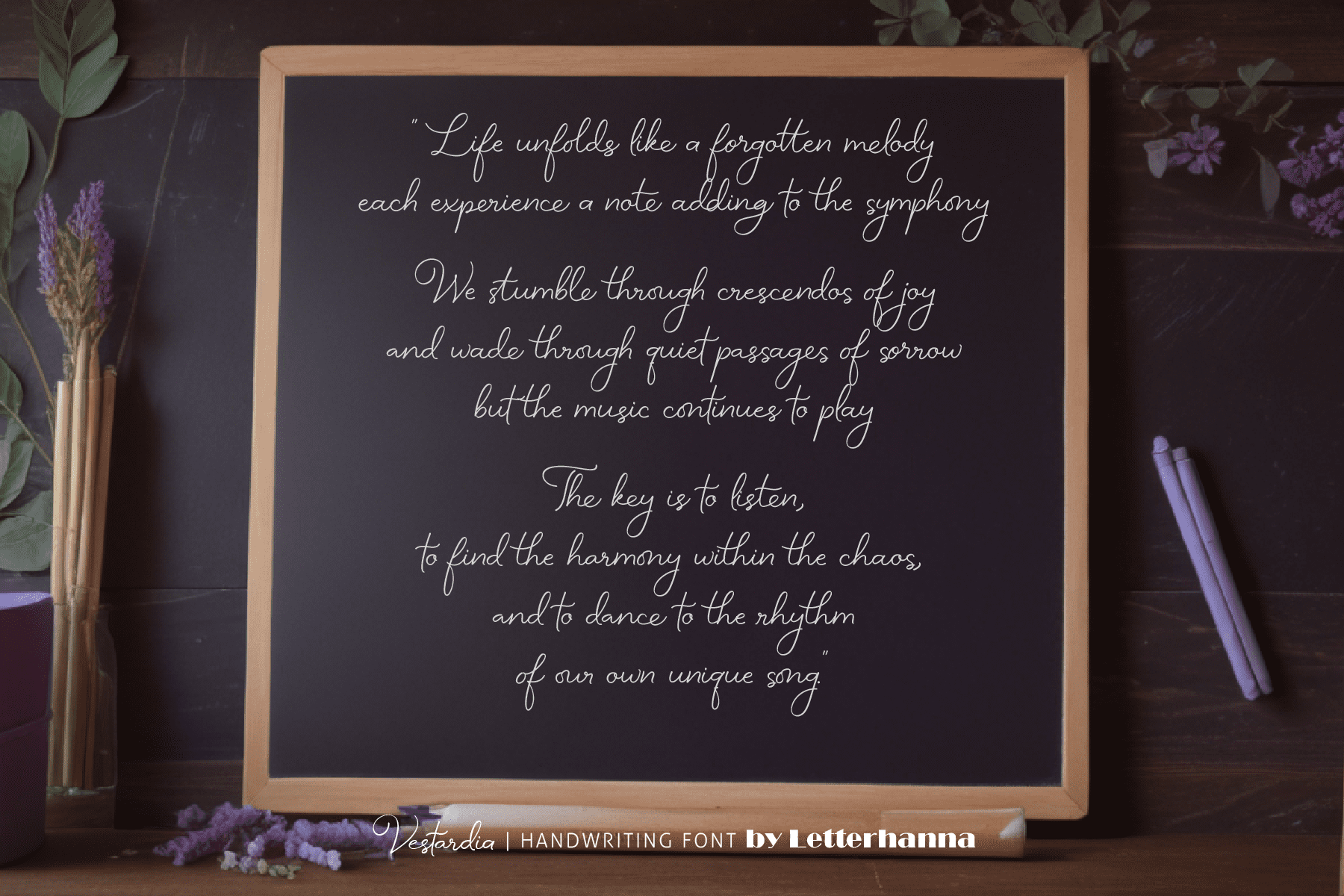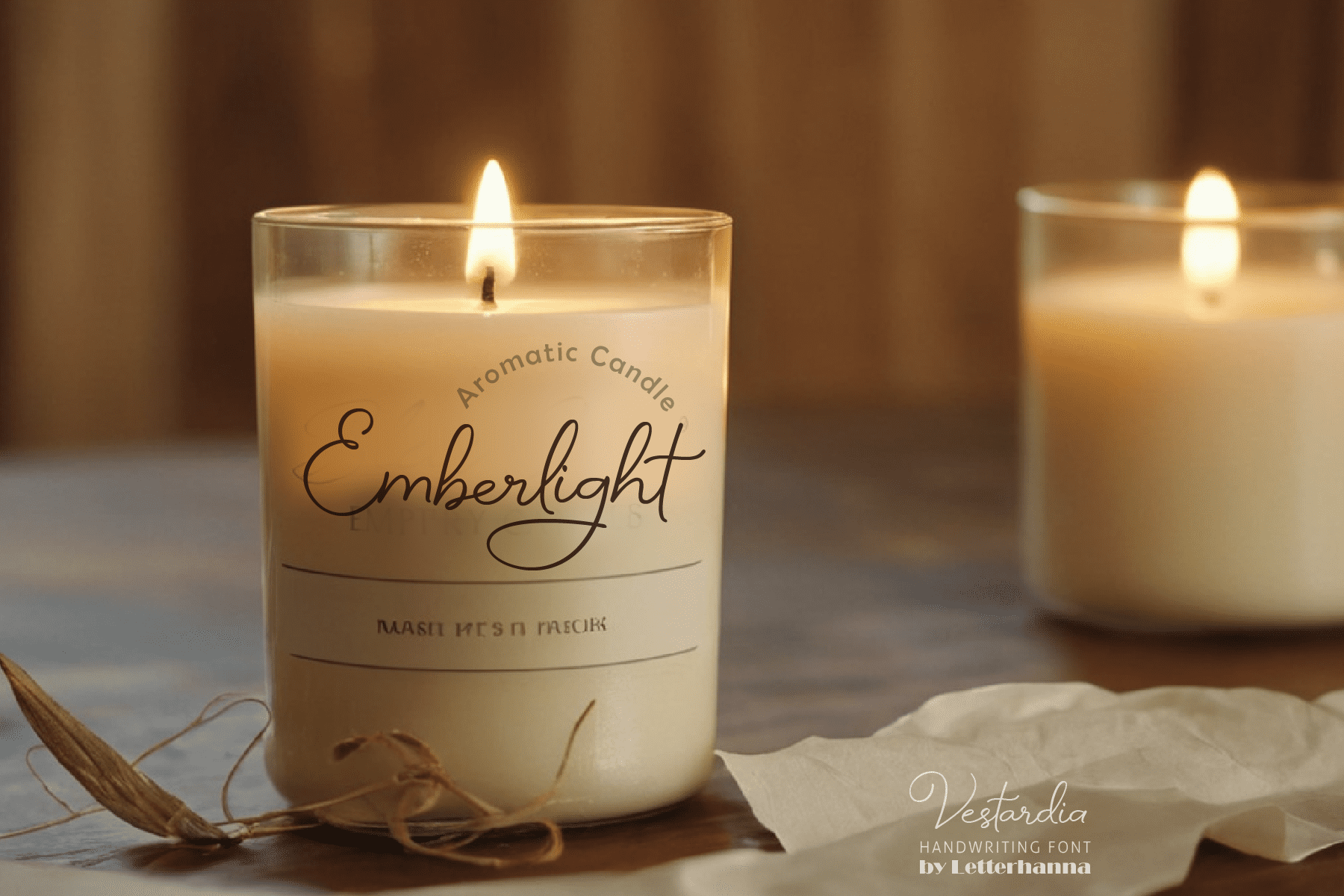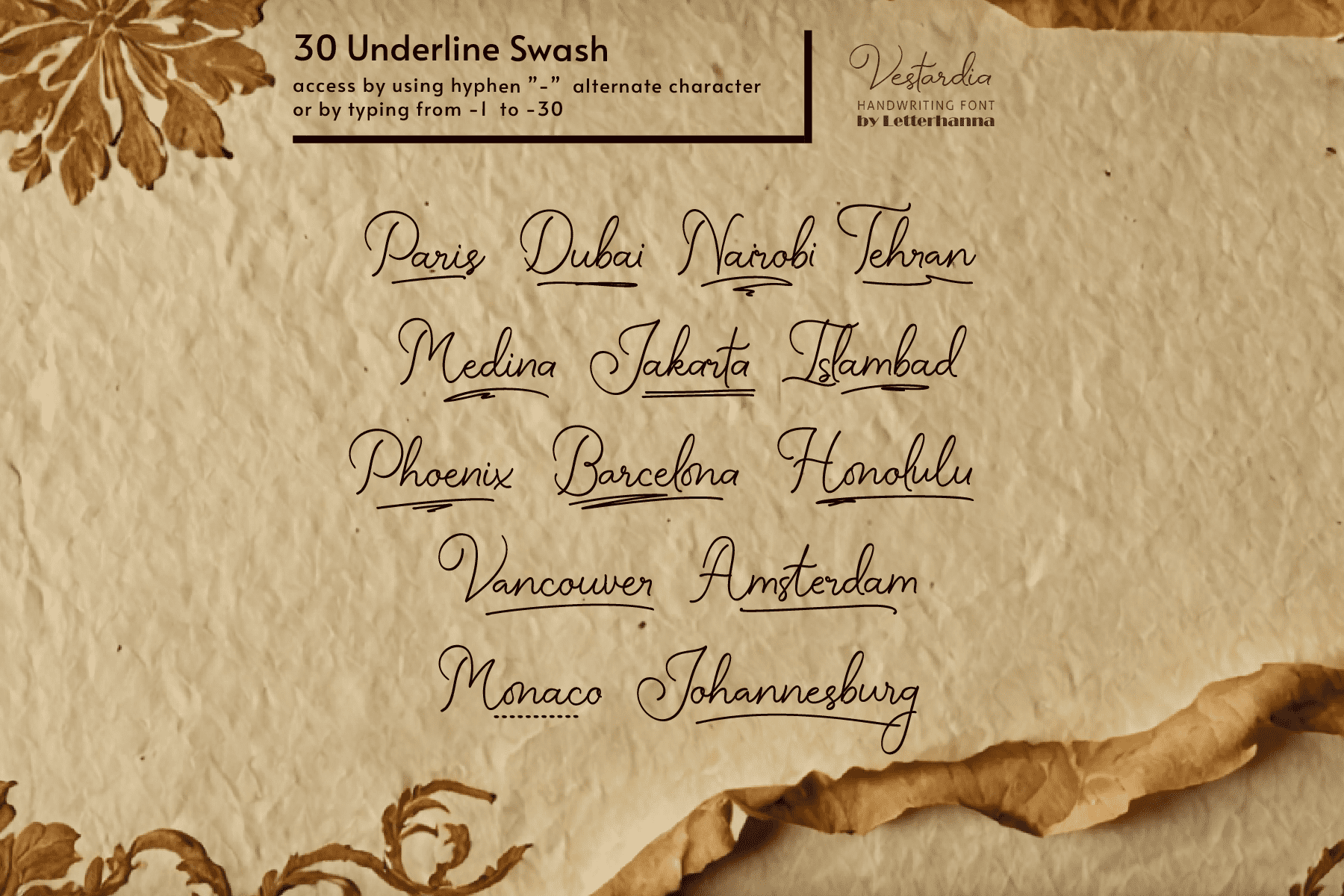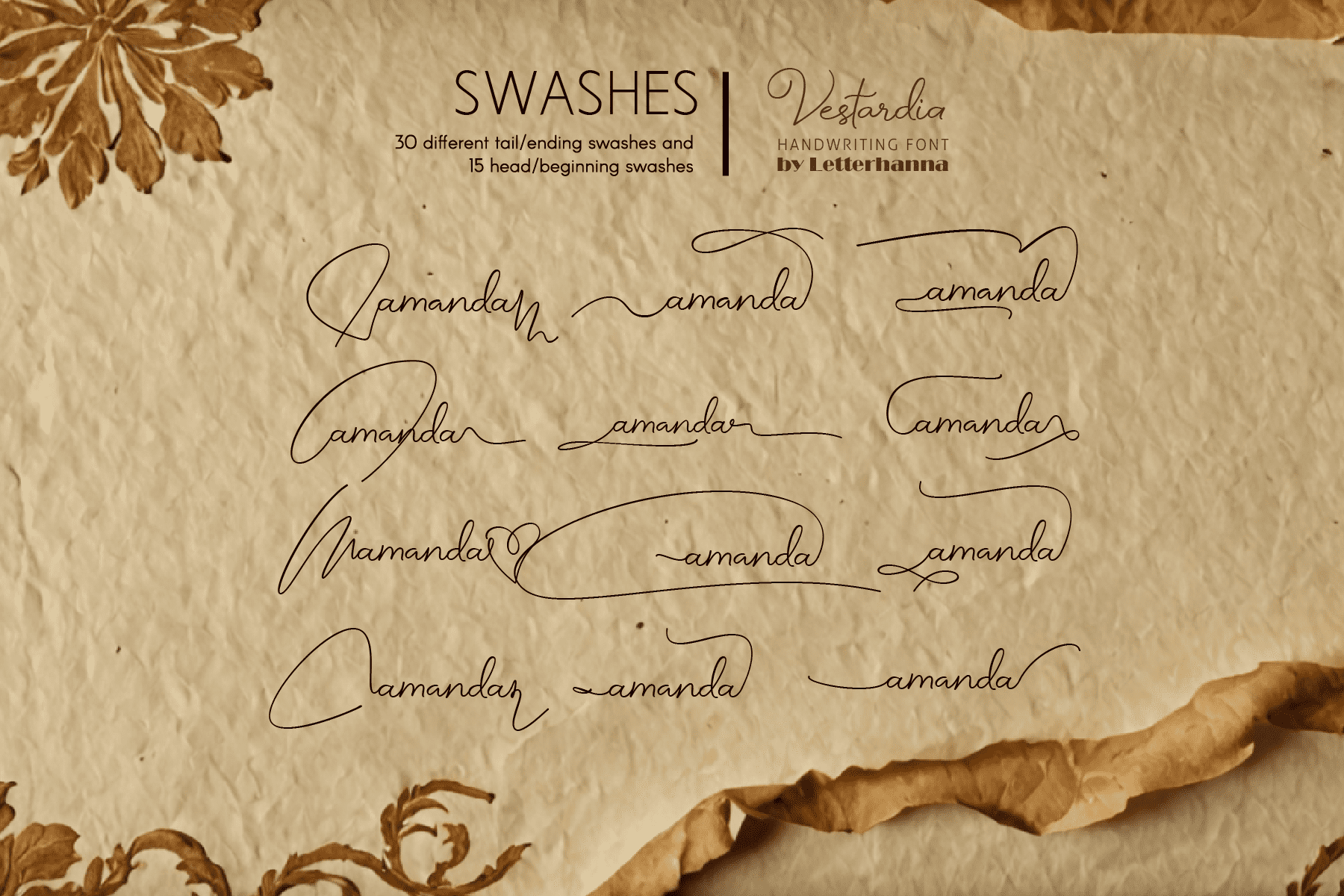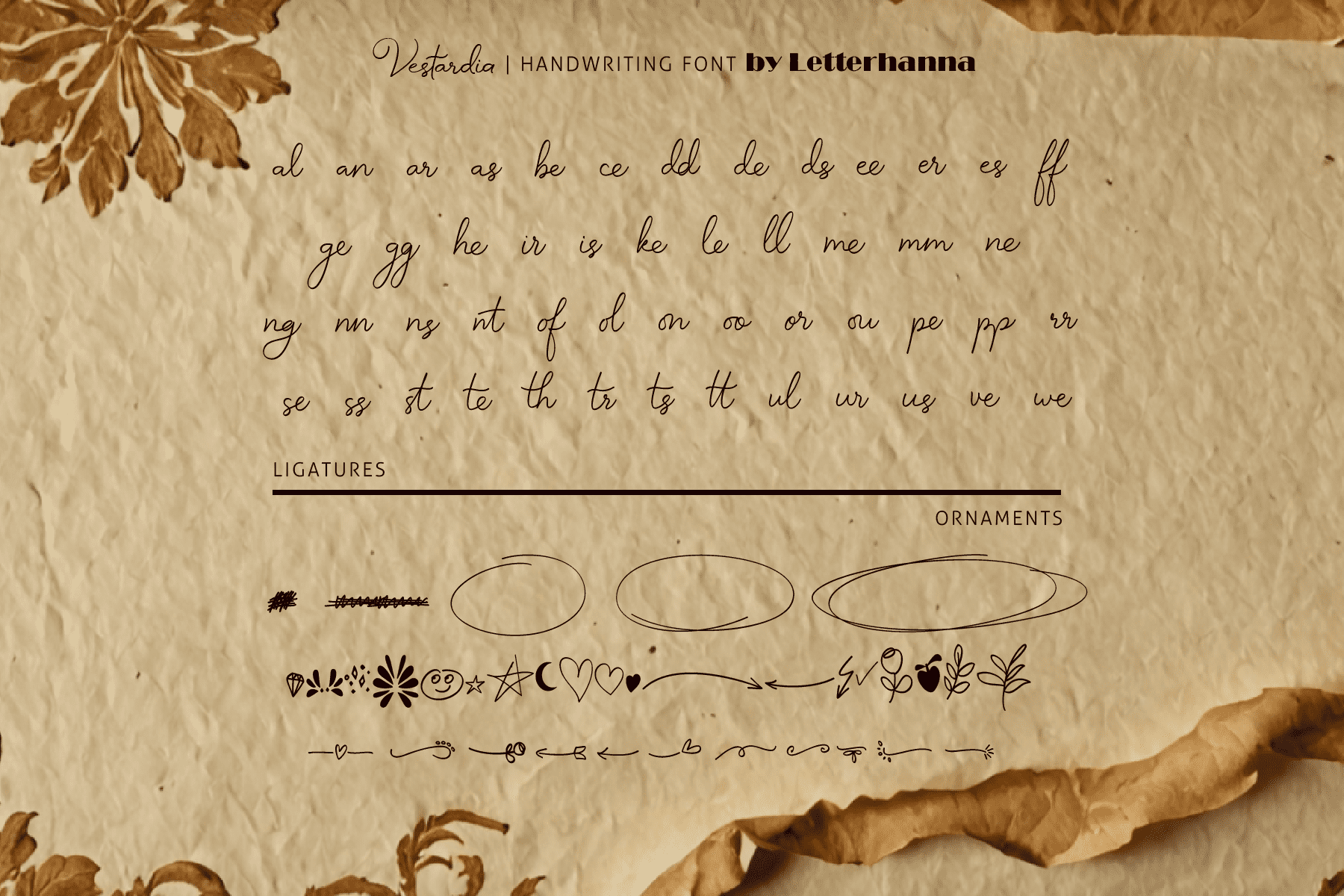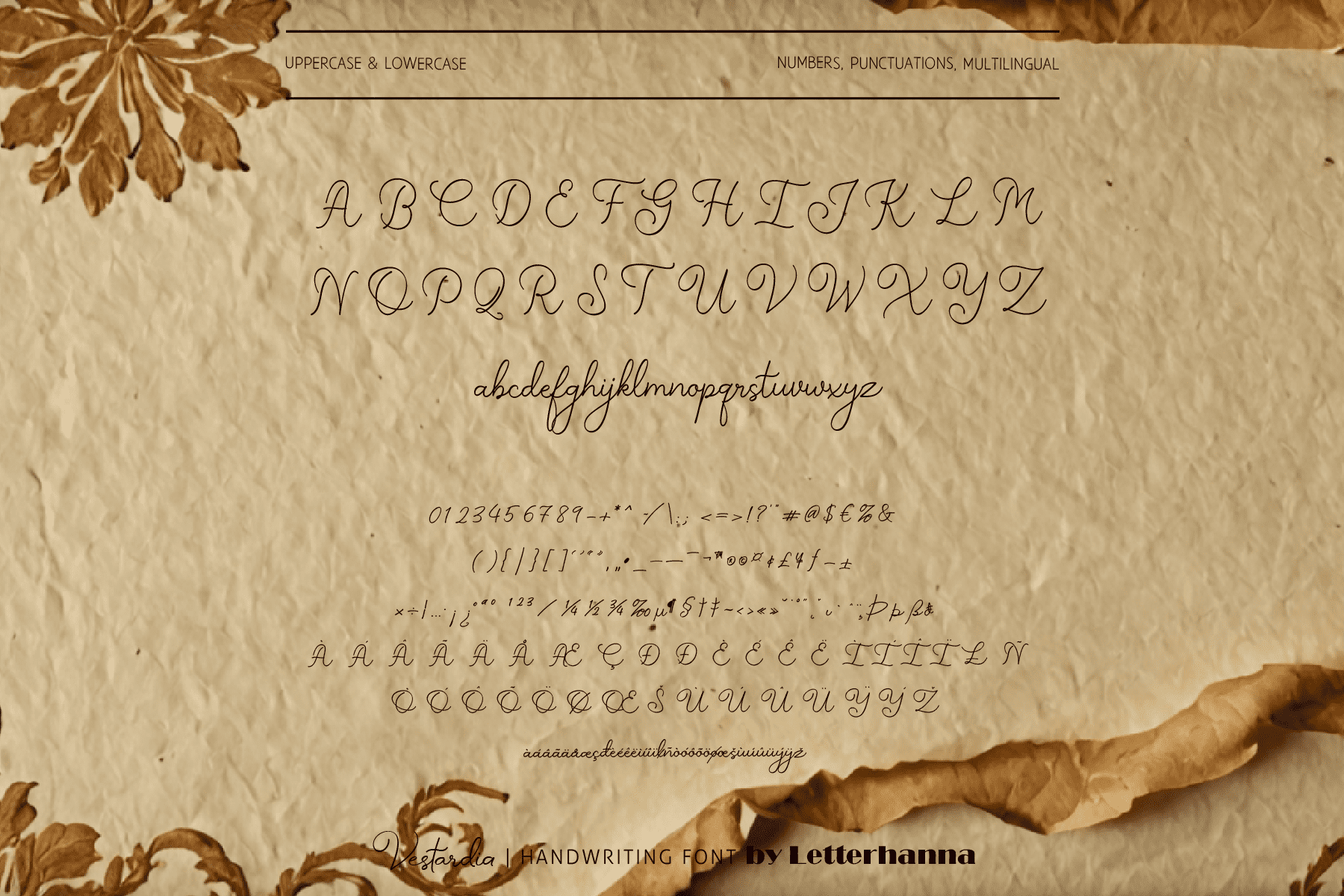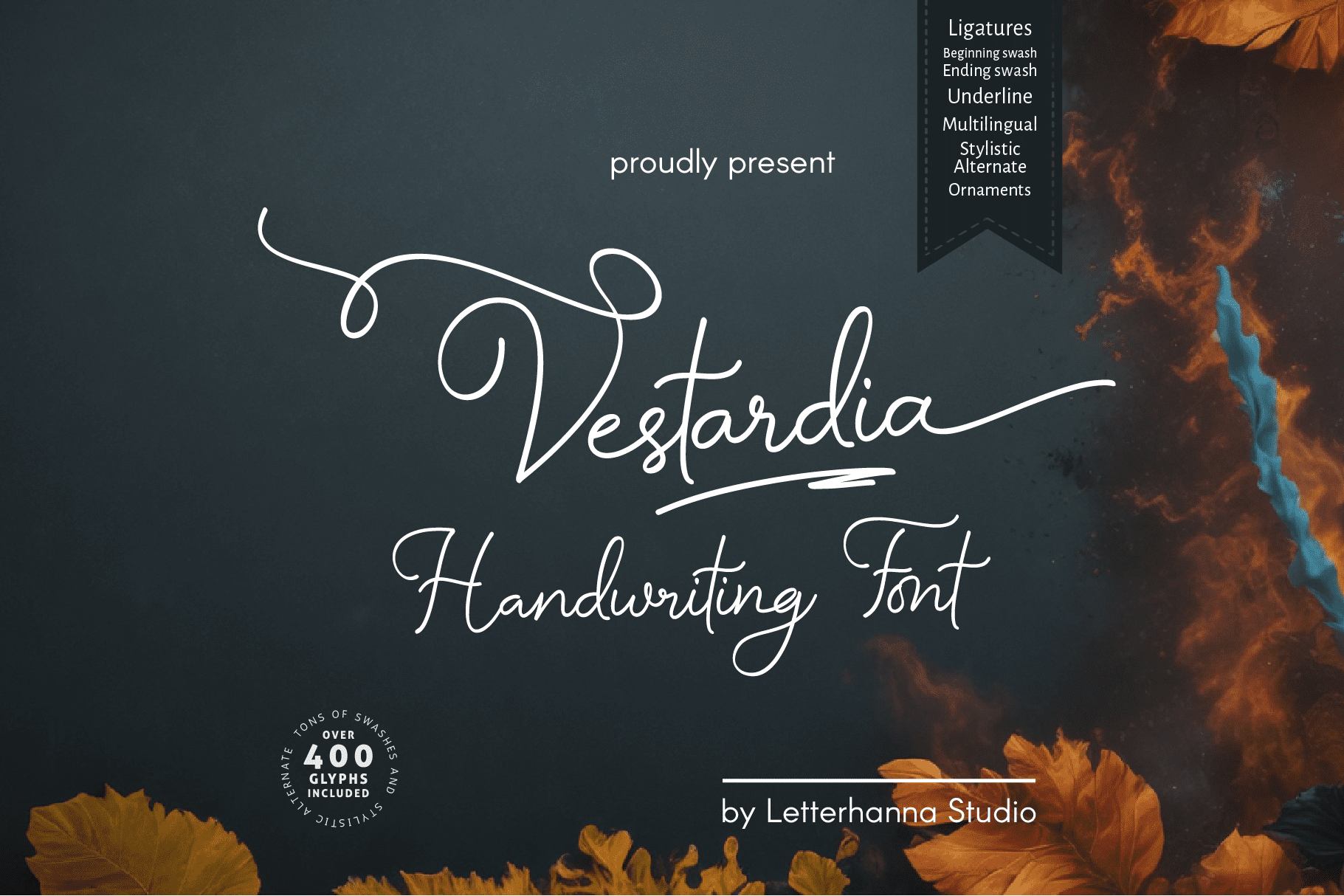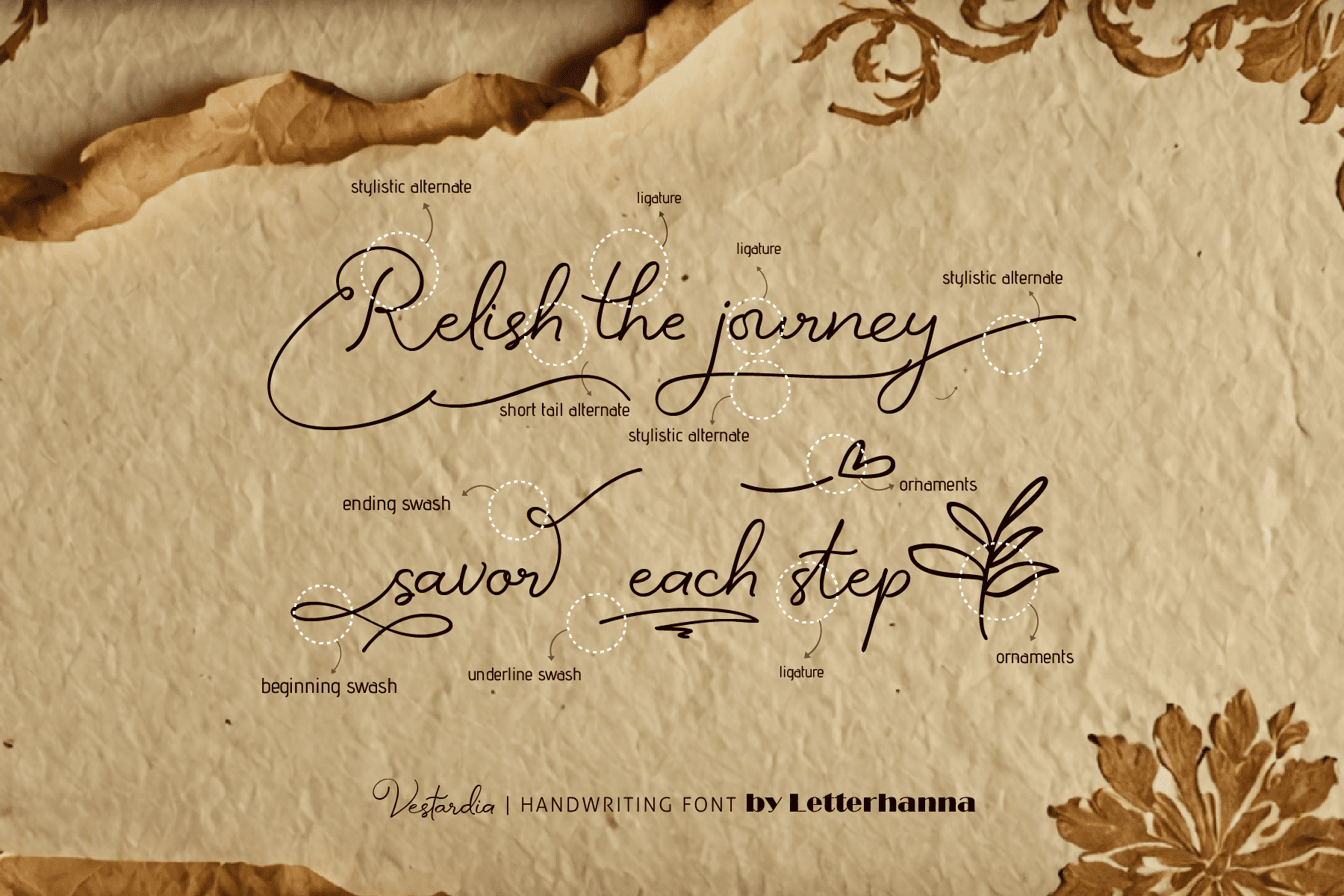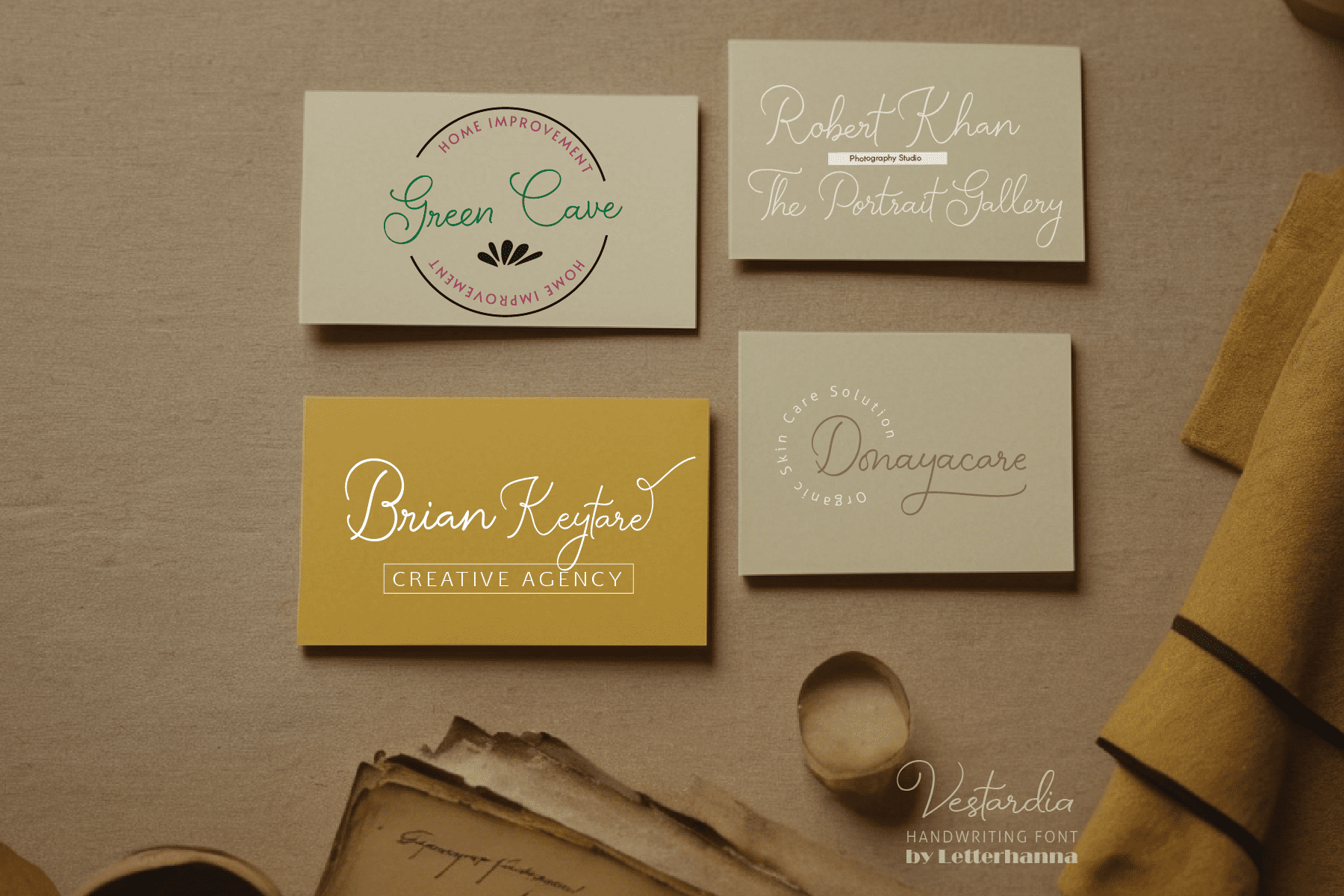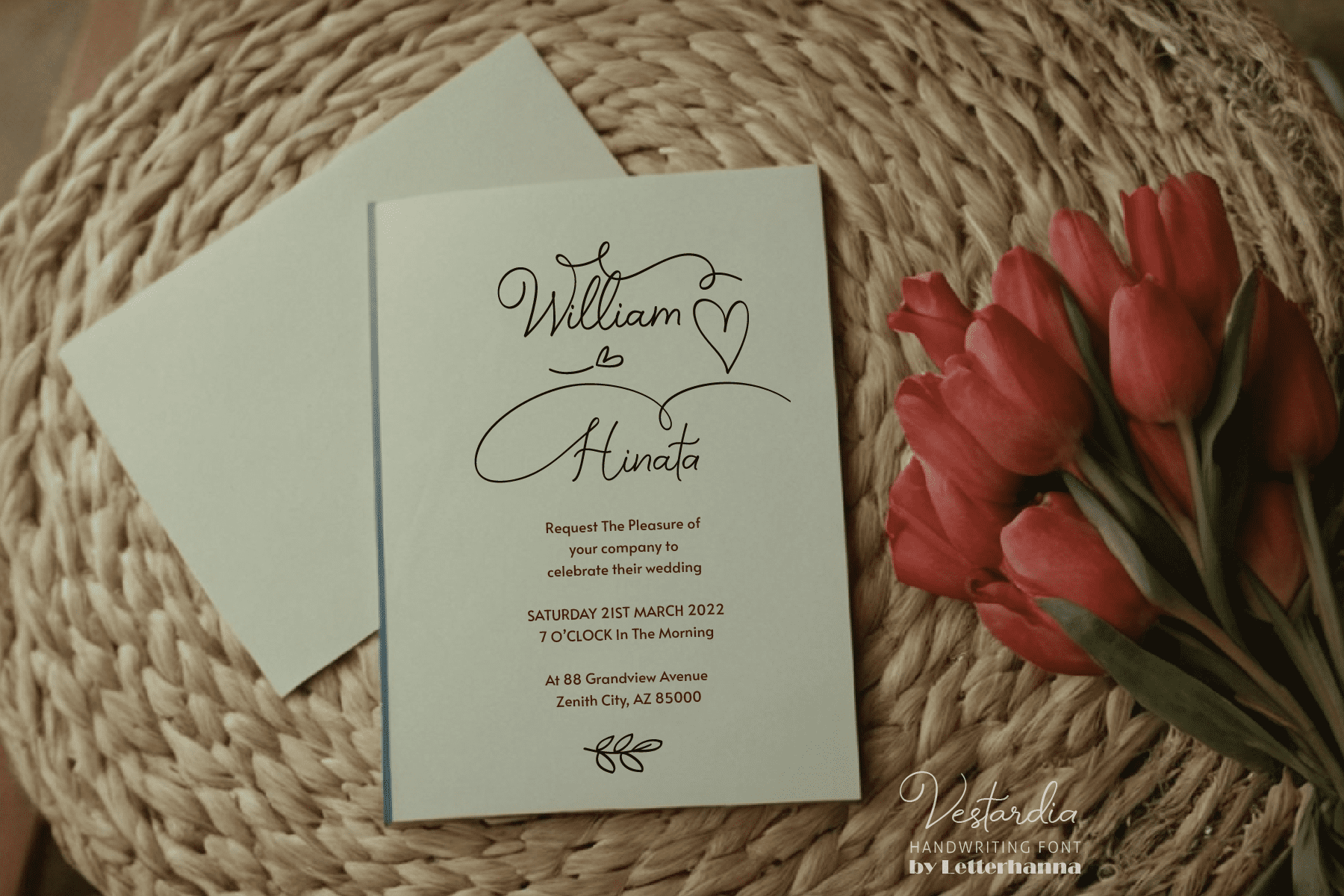
Vestardia Font
Unleash your inner calligrapher with Vestardia!
This captivating new handwriting script font transcends the ordinary. Vestardia boasts a treasure trove of stylistic alternates, swashes, and ligatures. These design flourishes dance across the page, allowing you to craft text with effortless elegance and a touch of whimsy. It’s perfect for adding a personal touch to wedding invitations, heartfelt letters, or captivating social media posts.
Accessing Stylistic Alternates
Stylistic alternates can be accessed by typing a plus symbol “+” in front of the original letter. For example, type “+a” to get the stylistic alternate of the letter a.
– Underline Swashes: Use a hyphen symbol “-” followed by a number between 1 and 30. For example, type “-3”, “-22”, or “-17” to get various underline swashes.
– Head/Beginning Swashes: Use a dollar sign “$” followed by a number between 1 and 9. For example, type “$2” or “$8” to get different head/beginning swashes.
– Tail/Ending Swashes: Use a percent sign “%” followed by a number between 1 and 30. For example, type “%3” or “%15” to get various tail/ending swashes.
– Ornaments: Use an “at” symbol “@” followed by a number between 1 and 26. For example, type “@4” or “@13” to get different ornaments.
PUA Encoding for Ease of Use, which means you can access all the glyphs and swashes with ease!
• Uppercase and lowercase letters
• Numbers and punctuation marks
• Multilingual support
• Ligatures
• Beginning and ending swashes
• Underline swashes
• Stylistic alternates
• Ornaments
• Easy access to swashes using ligatures